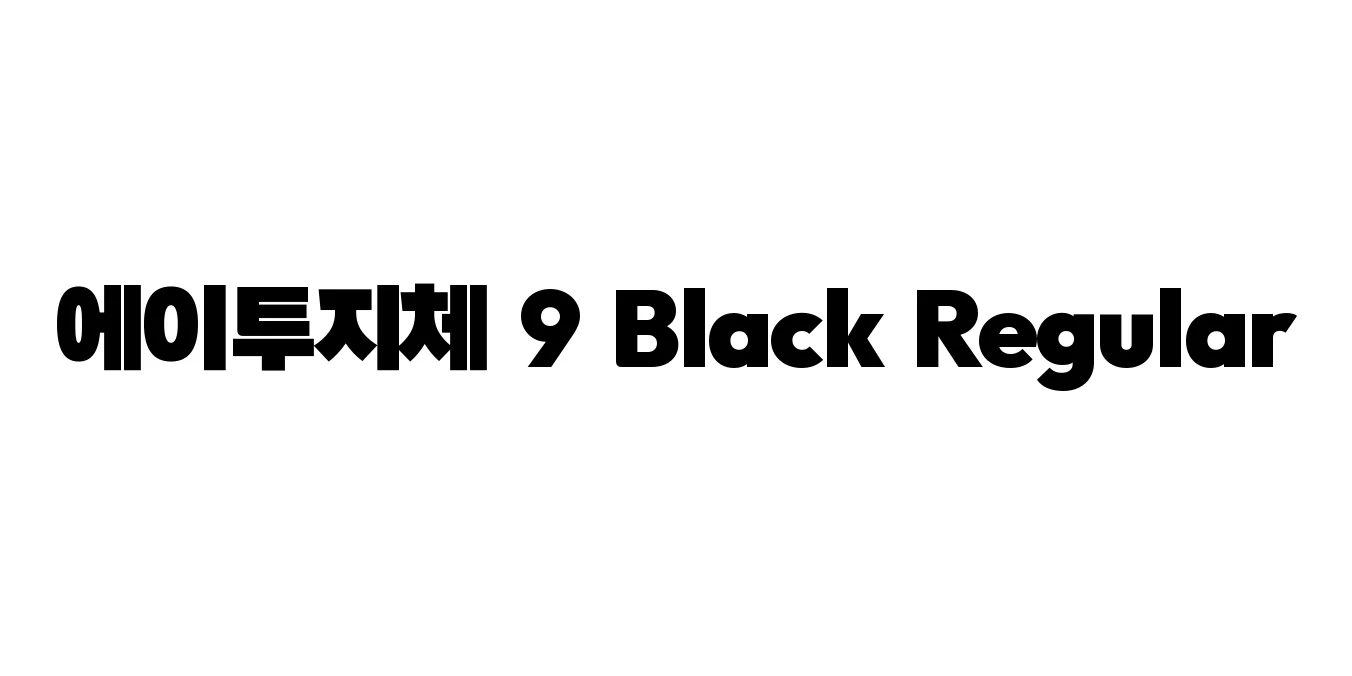
에이투지체 9 Black Regular
Designed by AtoZ Design Studio
| Category | Sans-serif (Display) |
| Designer | AtoZ Design Studio |
에이투지체 9 Black Regular is a powerhouse typeface designed for high-impact visual communication. Featuring an extremely heavy weight, this font is engineered to maintain clarity and structural integrity even at massive scales. Its geometric design language eliminates unnecessary flourishes, resulting in a clean, modern aesthetic that commands attention immediately.
This typeface was developed as part of a broader mission to provide high-quality, professional-grade Hangeul fonts to the creative community. By balancing thick strokes with precise negative space, 에이투지체 9 Black ensures that each character remains distinct and legible, making it an ideal choice for bold branding, large-scale environmental graphics, and digital interfaces that require a strong typographic voice.
에이투지체 9 Black Regular Best Uses
Perfect for high-impact titles that need to stand out on any medium.
Ideal for logos and brand identities requiring a strong, authoritative presence.
High visibility for outdoor advertising and large-scale event promotion.
Great for eye-catching thumbnails and marketing banners.